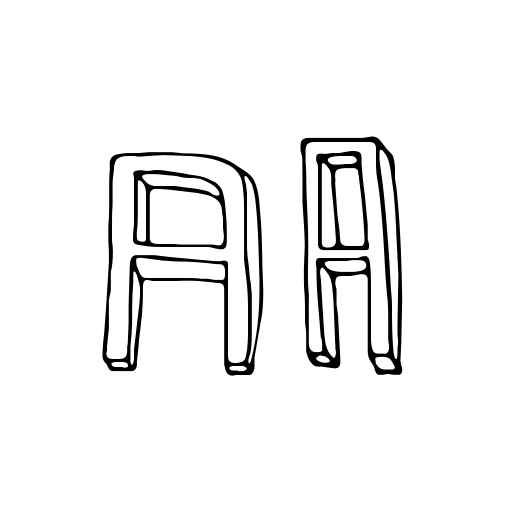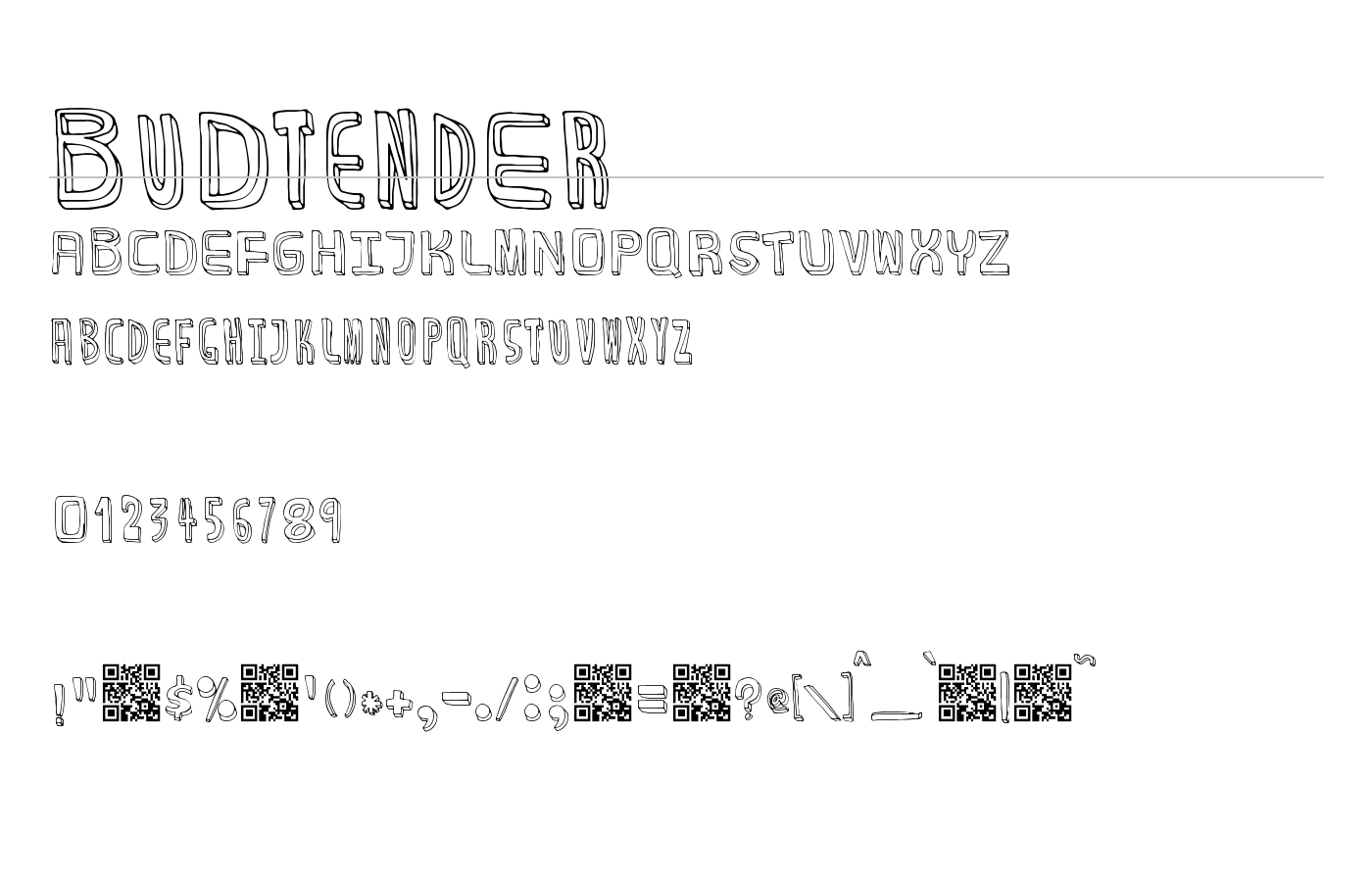
BuDtendEr is a playful, hand-drawn sans serif font with a light weight and narrow width, featuring quirky, uneven lines that give it a charming, organic feel. Its tall, condensed letterforms with subtle variations add character, making it ideal for creative projects, informal branding, and eye-catching headlines. This font works especially well where a fun, approachable vibe is desired, such as posters, packaging, and casual editorial design.
BuDtendEr Font
About BuDtendEr Font